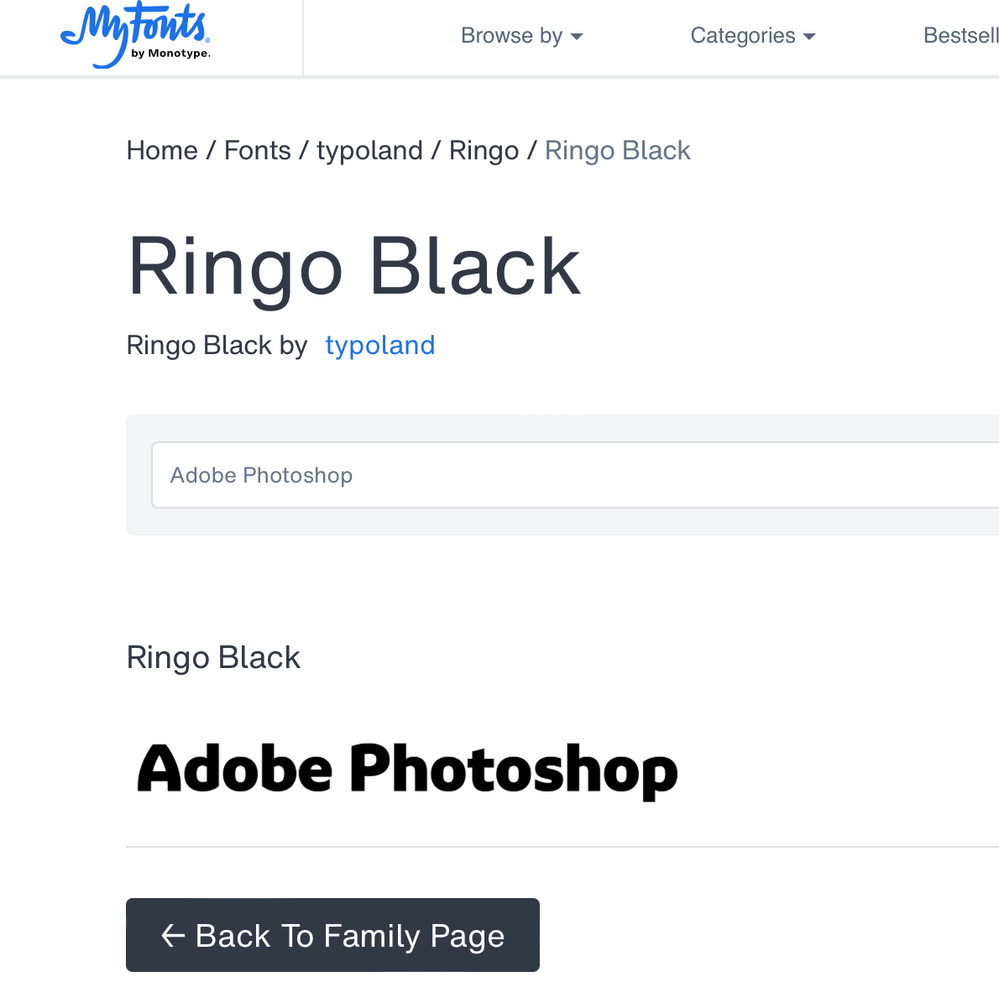
Is Adobe using a new typeface?
In Adobe InDesign, Photoshop, and Illustrator's 2025 splash screens, the name of the software shows in what looks like "Ringo", a Monotype typeface. What typeface is Adobe using here?
After way too much research, I have discovered that the letter "g" is the alternate form within Adobe Clean extra bold. The spur-less letters "n" appear to be from the typeface known as Ubuntu.
I don't think it likely that Adobe would use a Monotype font, but it is similar.
I don't have that font but went to MyFonts, and if I picked it right, Ringo looks similar but not the same:
Maybe a graphic designer created a custom font for the 2025 splash screens.